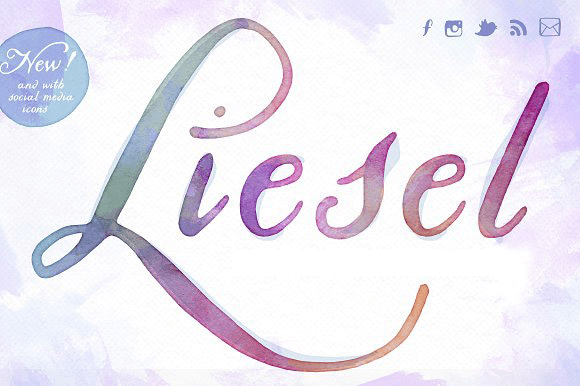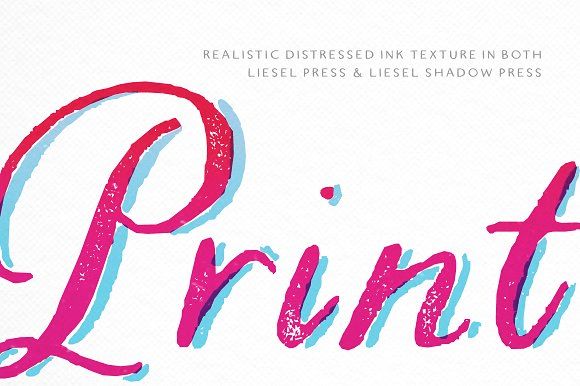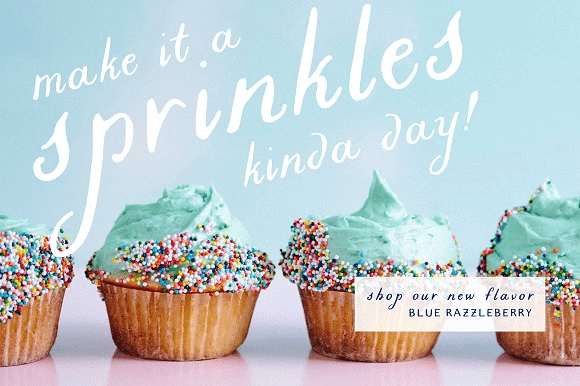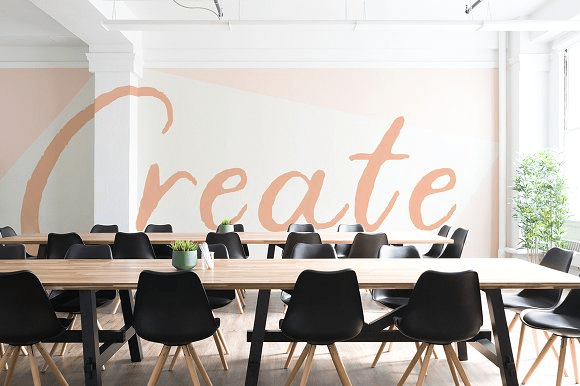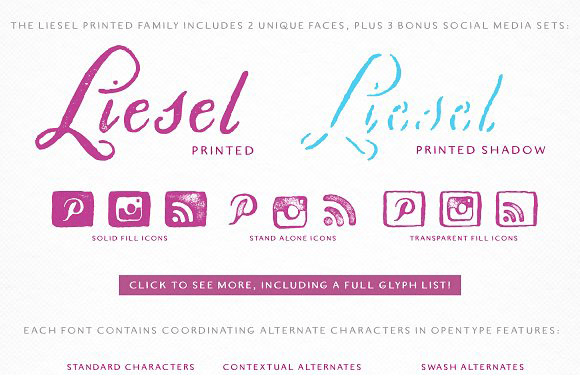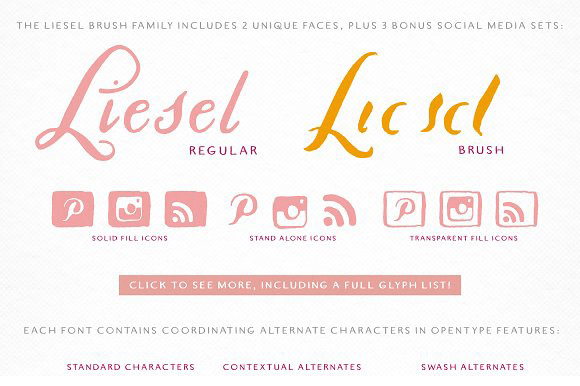
Liesel
Font Family by Magpie Paper Works
What happens when historical calligraphy and modern lettering kiss? Liesel!
This eight-font, hand-lettered family is loosely based on traditional letterforms. Used alone, Liesel Regular reflects a warm, antique aesthetic. But when you pair her with Brush, Pencil, and Shadow - all of which were designed for layering - a modern, artistic look emerges! Experiment with textures, overlays and blending modes to create realistic water colored text. Both Liesel Printed & Liesel Shadow Printed are highly detailed, distressed versions of their solid counterparts, and can be layered to recreate an authentic letterpress or screen printed effect. Two bonus social media icon sets can be used in conjunction with Liesel or on their own for integrating into websites and business collateral.
Opentype features programmed into each text font include contextual alternates, stylistic alternates, swashes, true fractions, and old style numerals.